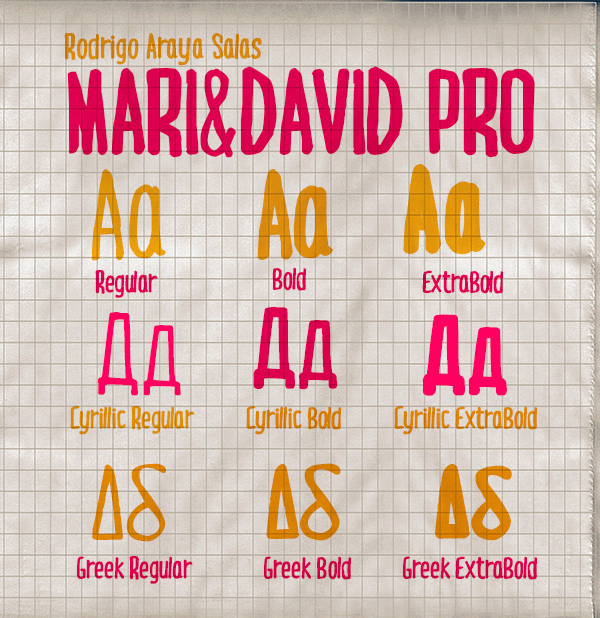
Mari&David is a free handwritten display font with tall, loosely drawn letters. Its narrow forms shift between blunt angles and rounded bends, and uneven stroke widths keep the line lively. The irregular spacing and wavering edges recall lettering made quickly with a marker.
Posters are its strongest setting, especially for independent music or informal events. It also suits album covers, cafe branding, and handmade packaging because the stretched shapes feel personal rather than polished. In illustrated campaigns, the lettering can become part of a sketched sign or character's hand-painted message.
This font was expanded from the regular Mari & David styles to include Bold and ExtraBold, along with additional Cyrillic and Greek characters. It was created specifically for the titles of Down. The font is available for purchase for commercial use.